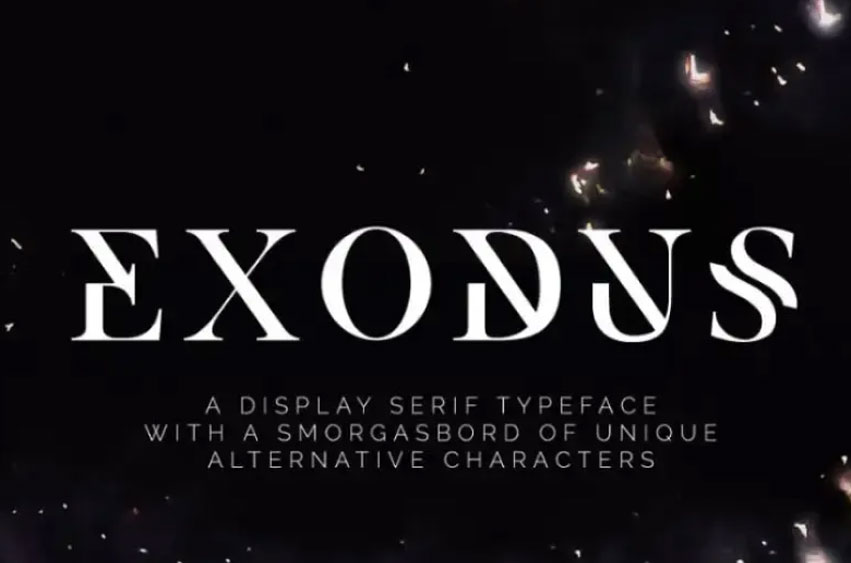
Exodus Font is an efficiently inspiring display serif font with the variation in the several styles of characters.
Exodus Standard package consist of Exodus Regular & Bold and the Stencil Bold while the Stencil Bold Wide contain the options such as Bold Broad Variant of Exodus Standard; Exodus Display consist of the ‘Subtract Bold’, ‘Subtract Bold Shino Bold subract Bold’ and the ‘subtract Bold’ stil have the Shino Bold subract Bold options.